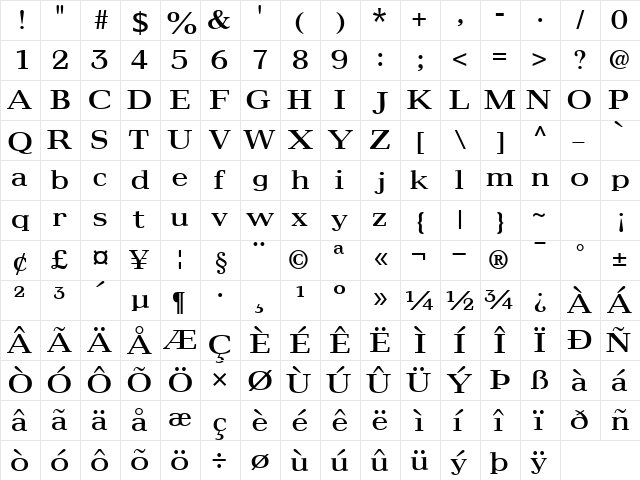
AlethiaSSK Regular
Design Context for AlethiaSSK Typeface
AlethiaSSK takes a measured approach to typography — its balanced proportions and neutral character make it a reliable workhorse for both digital and print work.